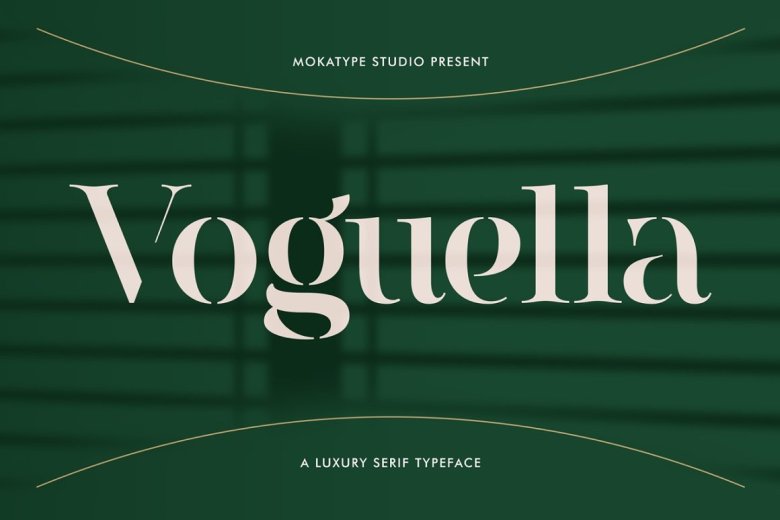
Voguella Font
Hello Introducing, Voguella – Luxurious Serif Display Font is elegant, inspired by the famous Elegant logo, perfect for the purposes of designing templates, brochures, videos, advertising branding, logos, and more. Perfect for adding a unique twist to word-mark logos, monograms, or pull quotes.
Voguella Serif Typeface